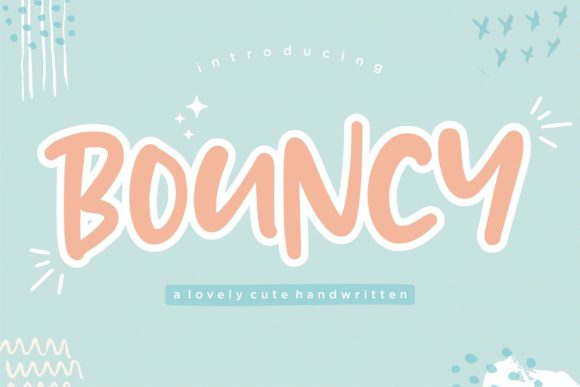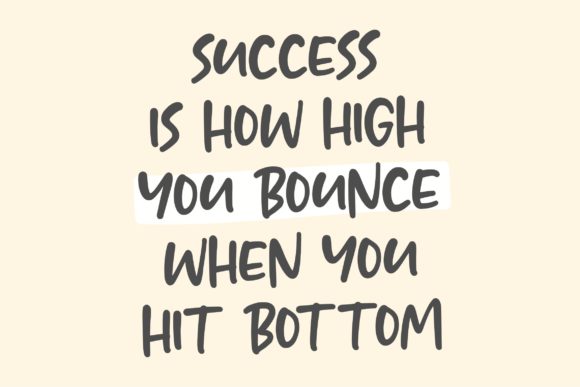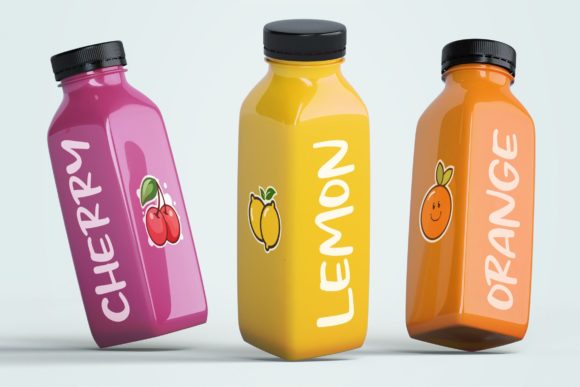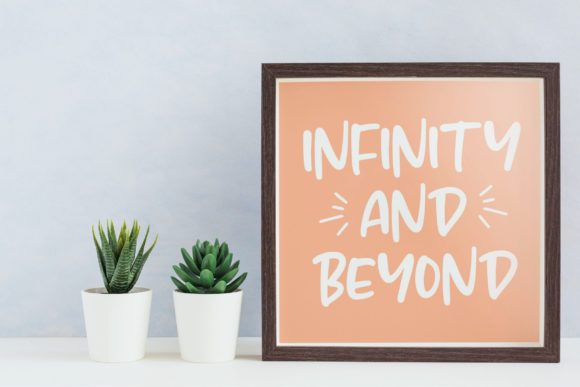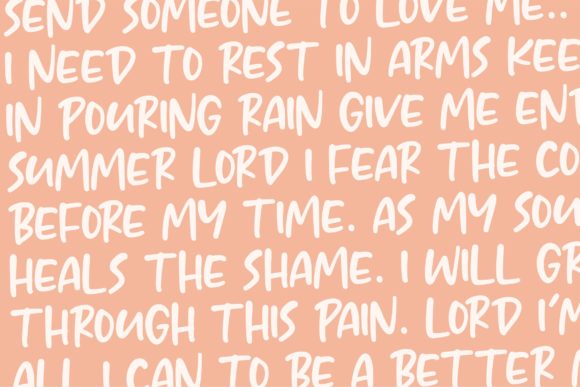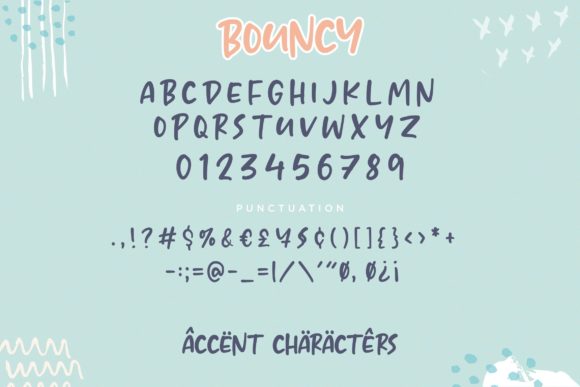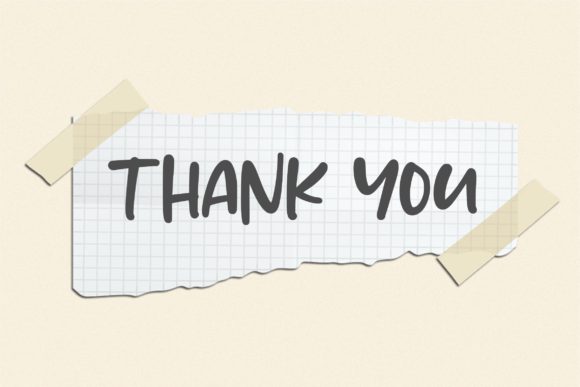
Bouncy Font
About Bouncy Font
Bouncy is s cute and friendly handwritten font. Add it to each of your kids or school project and notice how it brightens them up!